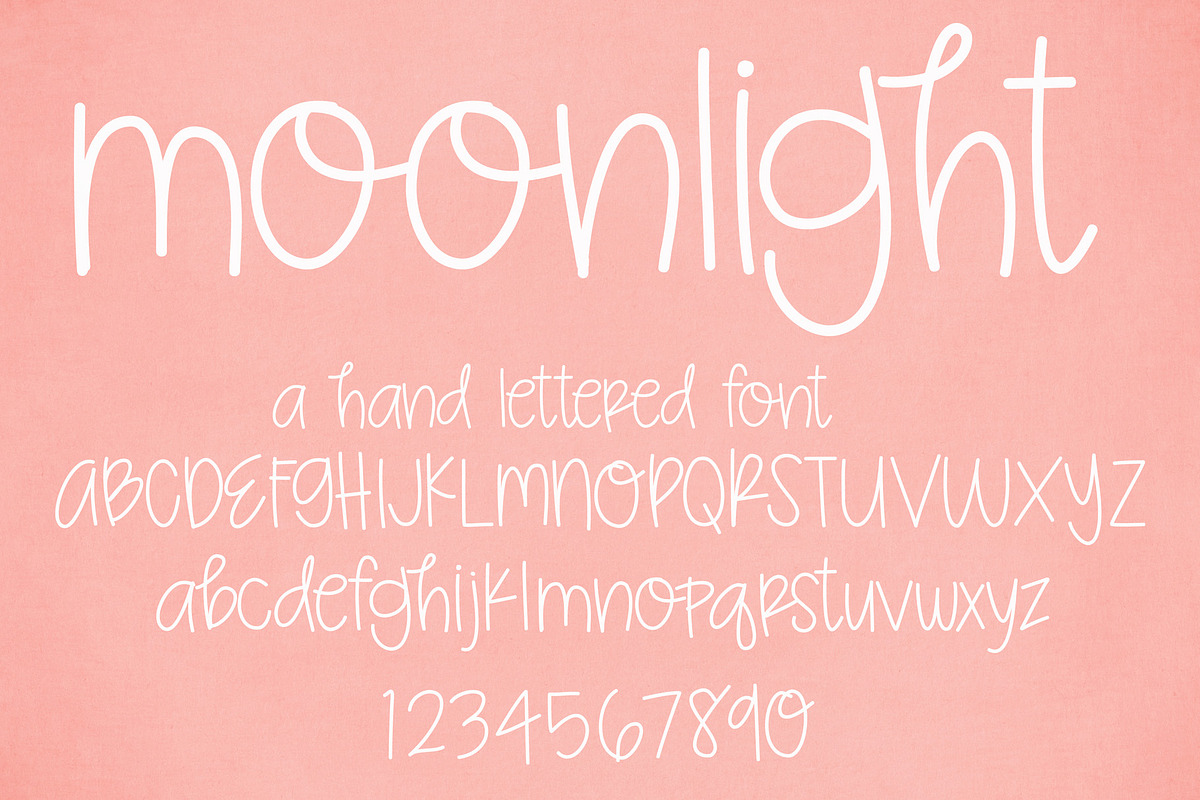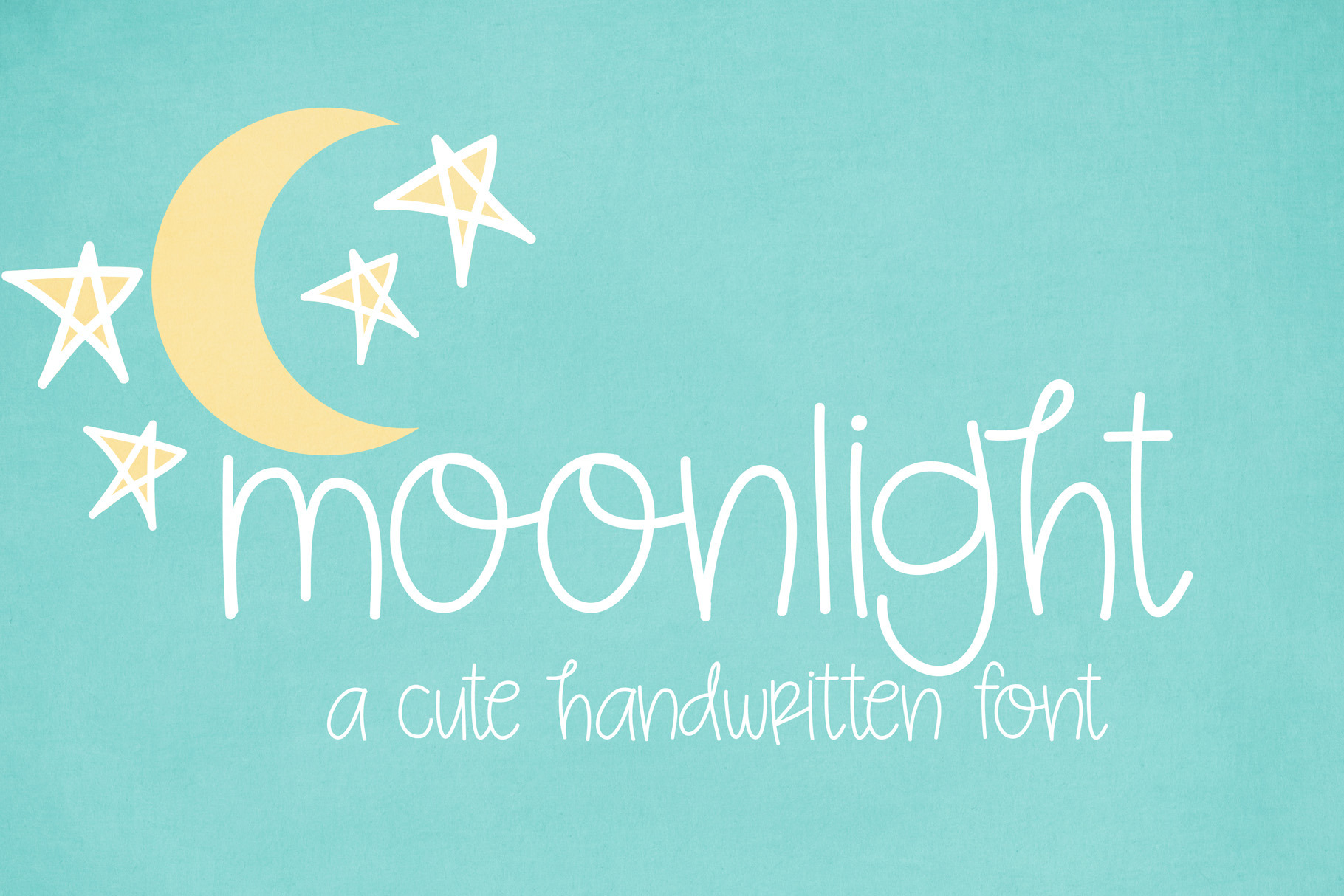
Moonlight Handwritten Script Font
Introducing a cute handwritten script font!
Perfect for greeting cards, branding, stationery, social media, scrapbooking, prints and more!